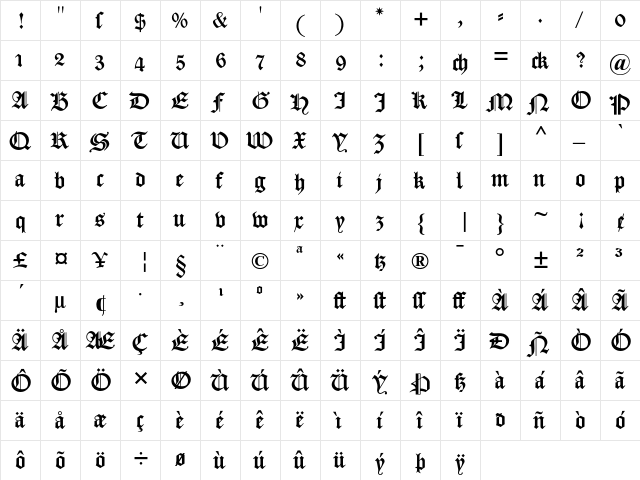
DS CaslonGotischOsF Regular
Regular · by Typographer Mediengestaltung William Caslon (1692-1766) ·
Foundry by Typographer Mediengestaltung
DesignerWilliam Caslon (1692-1766)
Design Context for DS CaslonGotischOsF Typeface
DS CaslonGotischOsF is a composed and adaptable typeface that performs quietly and consistently across a wide range of design contexts.